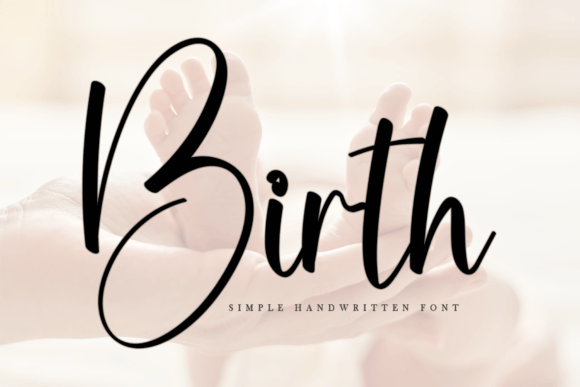
The Birth Font: A Friendly and Cute Handwritten Font for Your Creative Projects
I still remember the design moment that led me to discover the Birth font. I was working on a DIY project for a client’s baby shower invitation, and I was struggling to find the perfect font that would convey a warm and friendly feel. The client wanted something that would make the invitation look handmade and special, but I was running out of options. That’s when I stumbled upon the Birth font, and it instantly became my go-to choice.
An Honest Review of the Birth Font
What I Love About the Birth Font
- ✨ The Birth font has an incredibly friendly feel that makes it perfect for creative projects, such as baby shower invitations, greeting cards, and social media graphics.
- ✅ It’s a cute and casual handwritten font that’s easy to read and looks great in both digital and print formats.
- 💕 The font has a unique and charming personality that adds a personal touch to any design.
While the Birth font is an amazing choice for many projects, there are a few quirks to keep in mind:
- 🤔 The font may not be suitable for very formal or professional projects, as it has a more casual and playful feel.
- Experiment with the font’s OpenType features, such as ligatures and stylistic alternates, to add more personality to your design.
The Designer Inspiration Behind the Birth Font
The Birth font was designed with the intention of creating a friendly and approachable handwritten font that’s perfect for creative projects. The designer wanted to create a font that would evoke a sense of warmth and personality, making it ideal for designers, crafters, and creative hobbyists.
Q: What is the Birth font best used for?
A: The Birth font is best used for creative projects, such as baby shower invitations, greeting cards, and social media graphics, where a friendly and approachable feel is desired.
Q: Is the Birth font suitable for formal projects?
A: No, the Birth font may not be suitable for very formal or professional projects, as it has a more casual and playful feel.